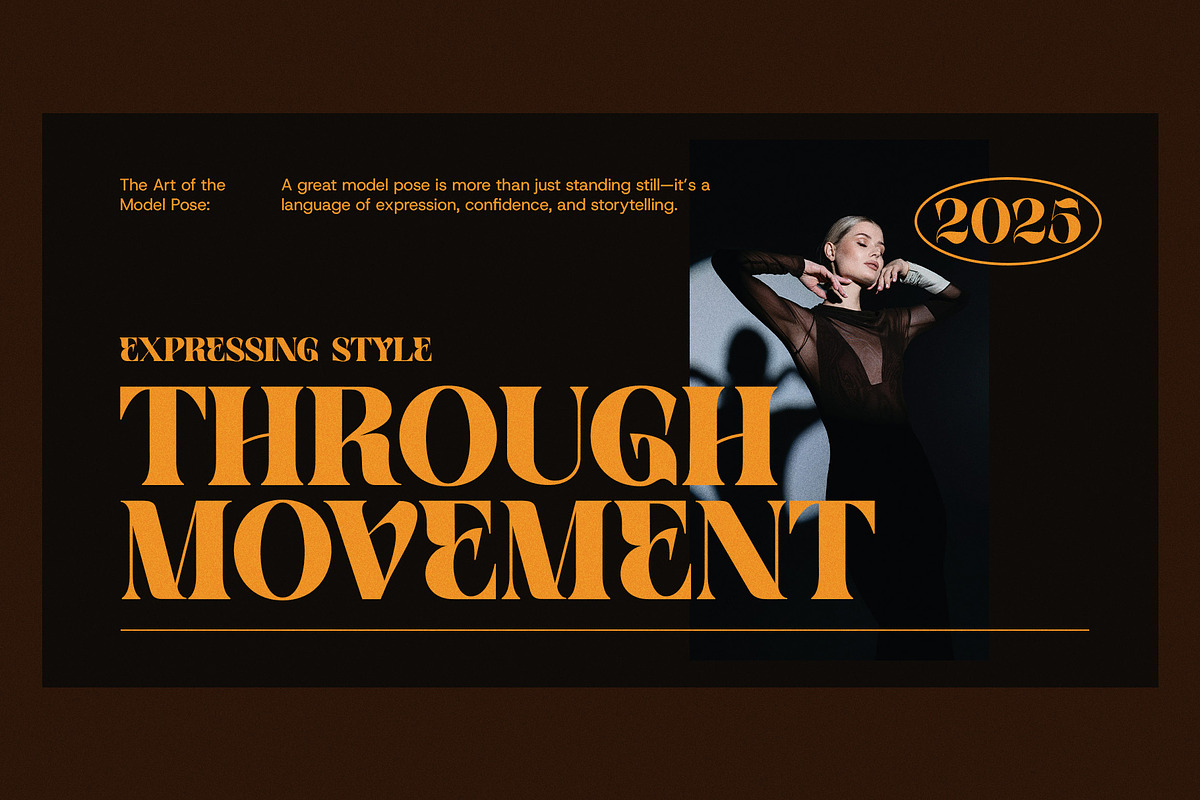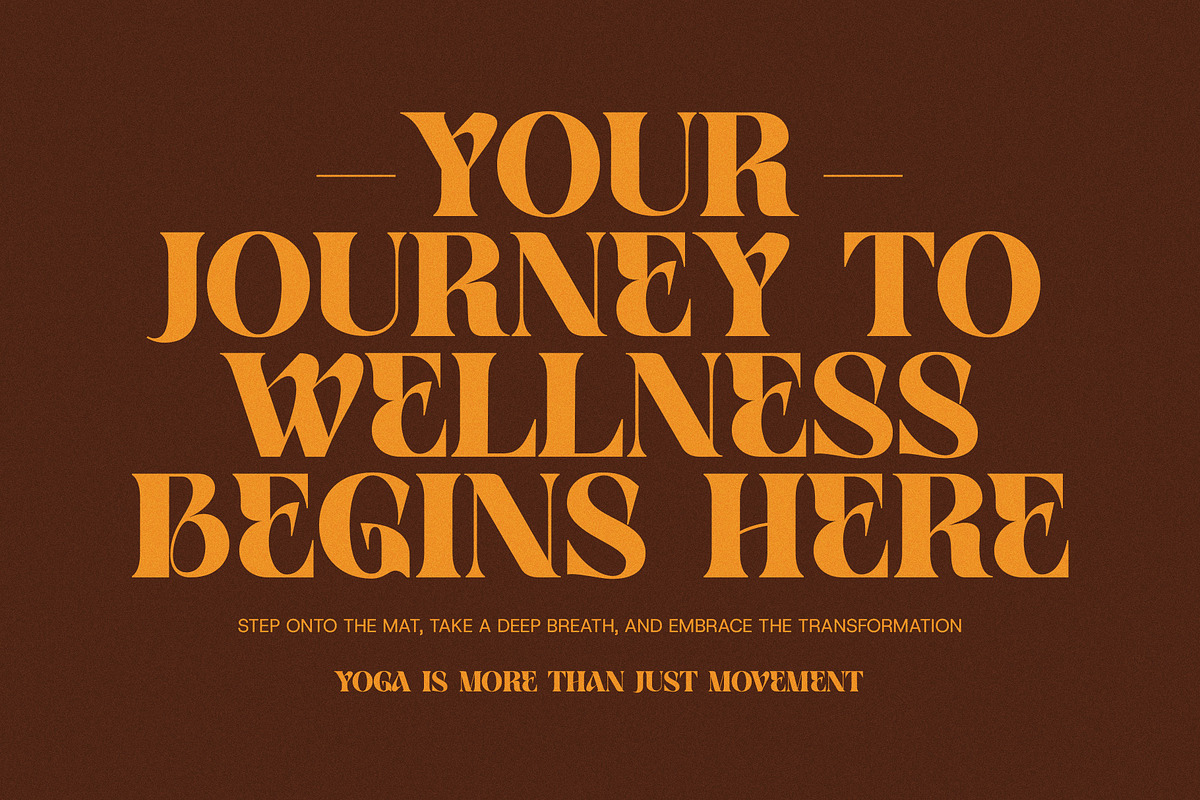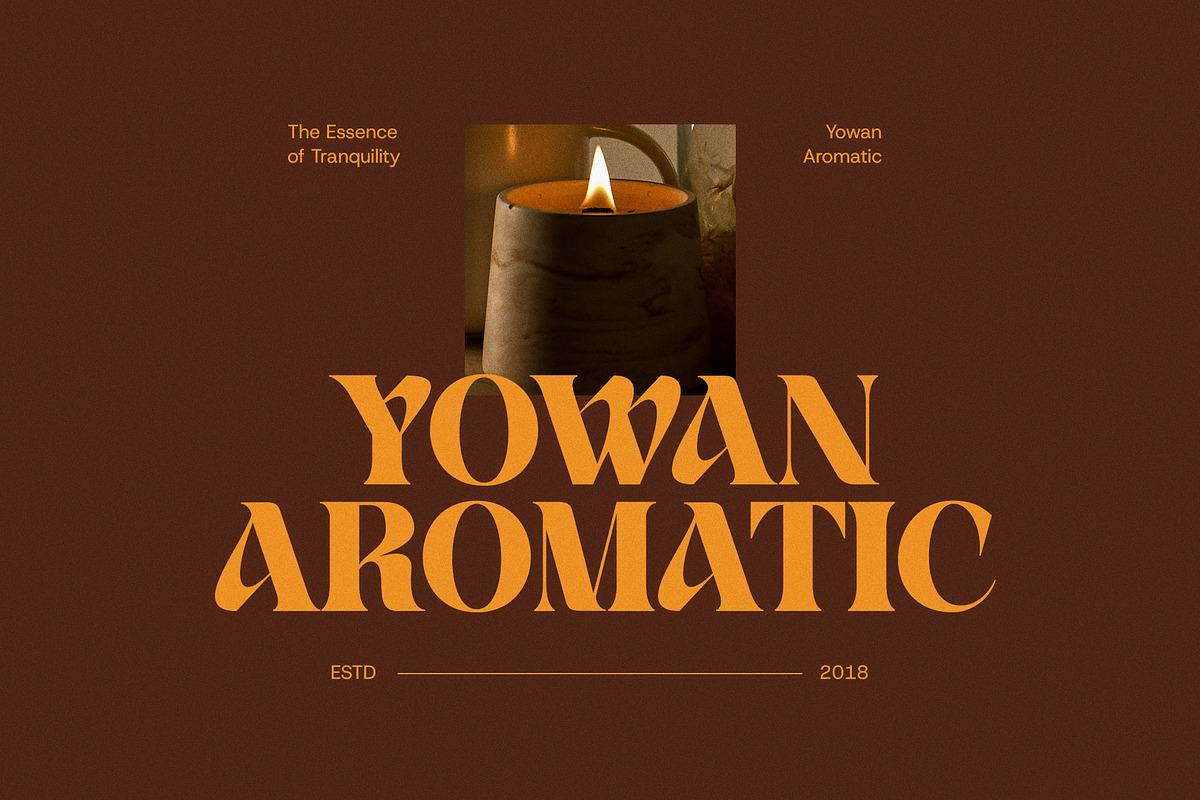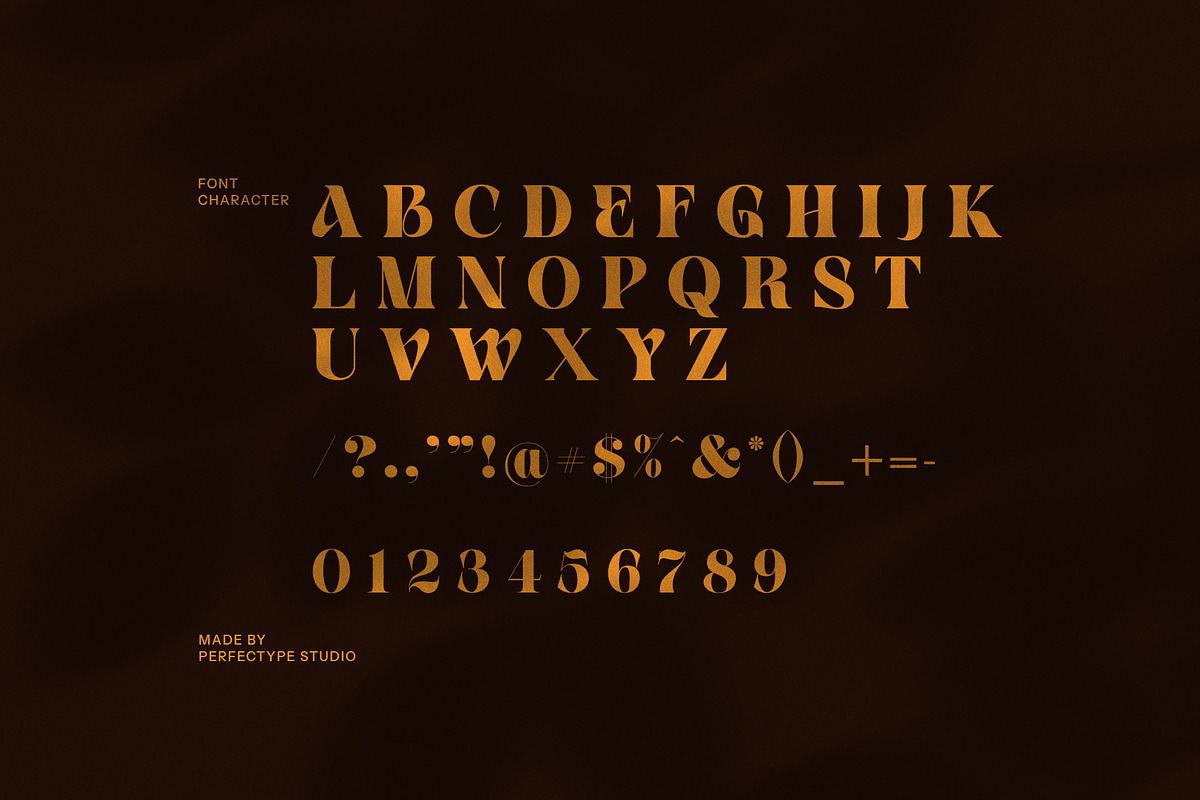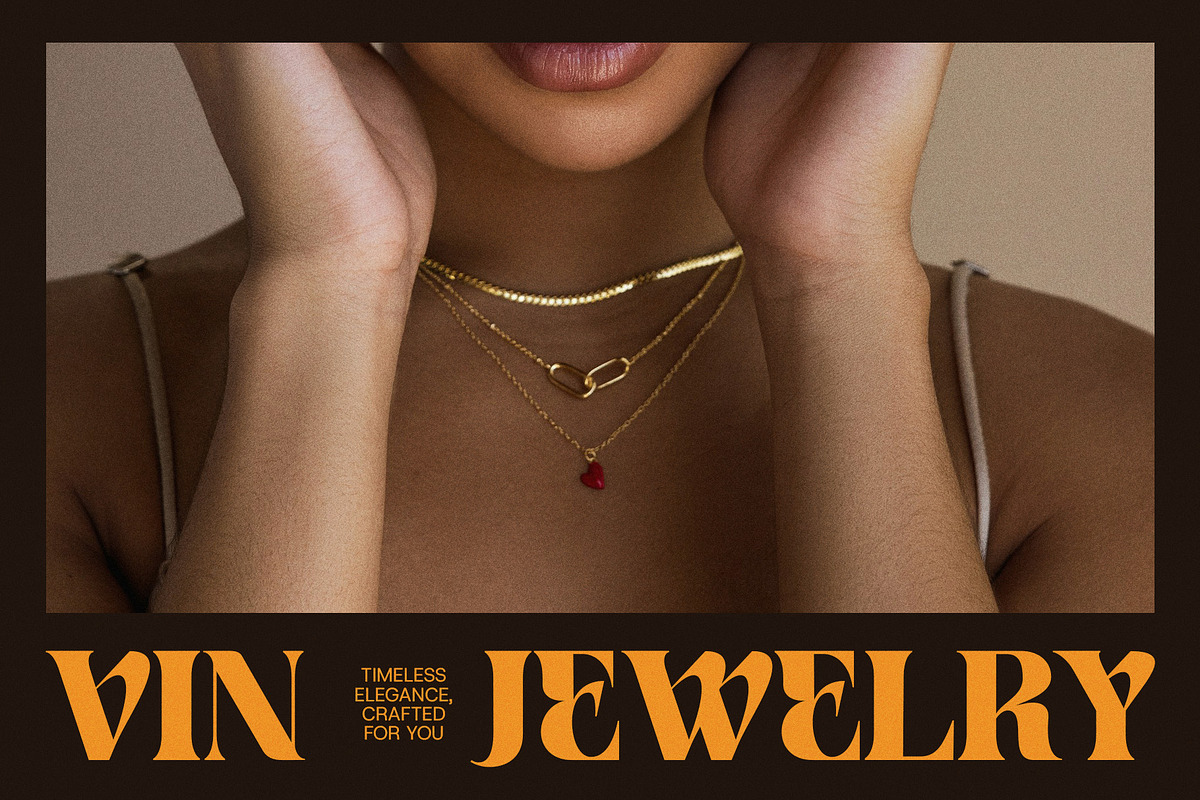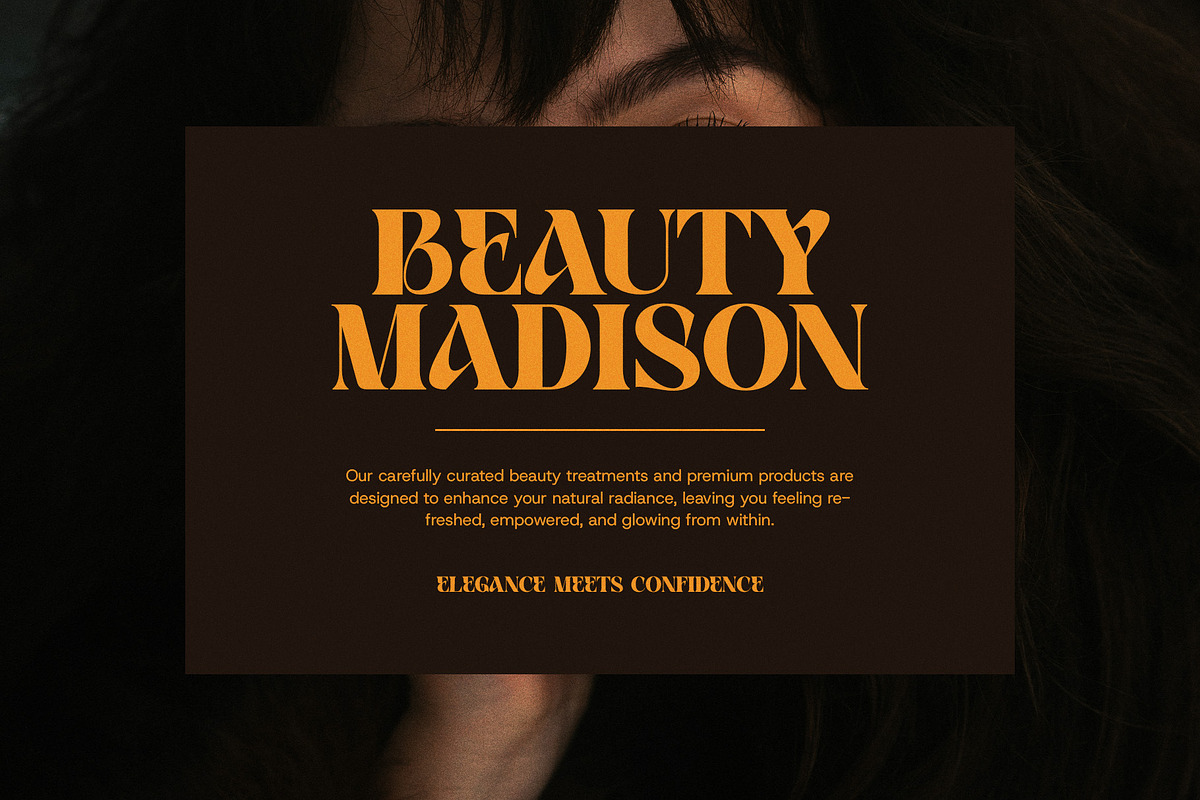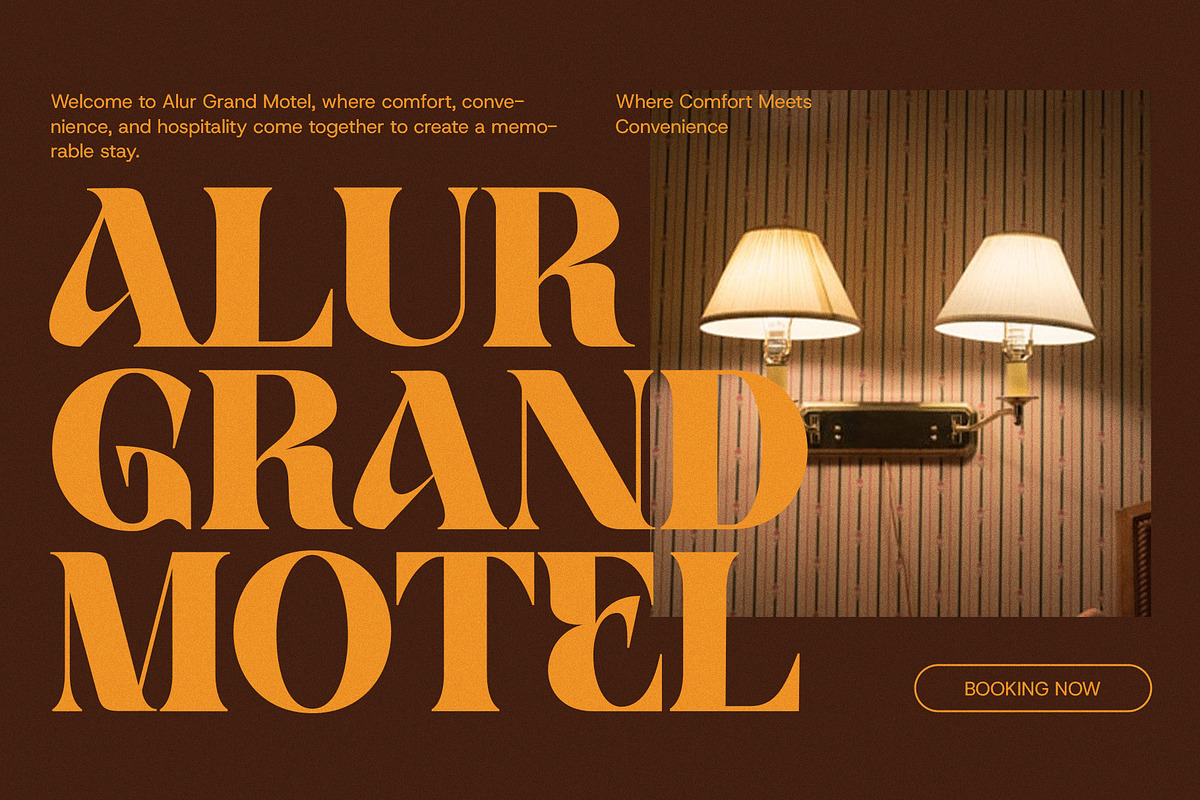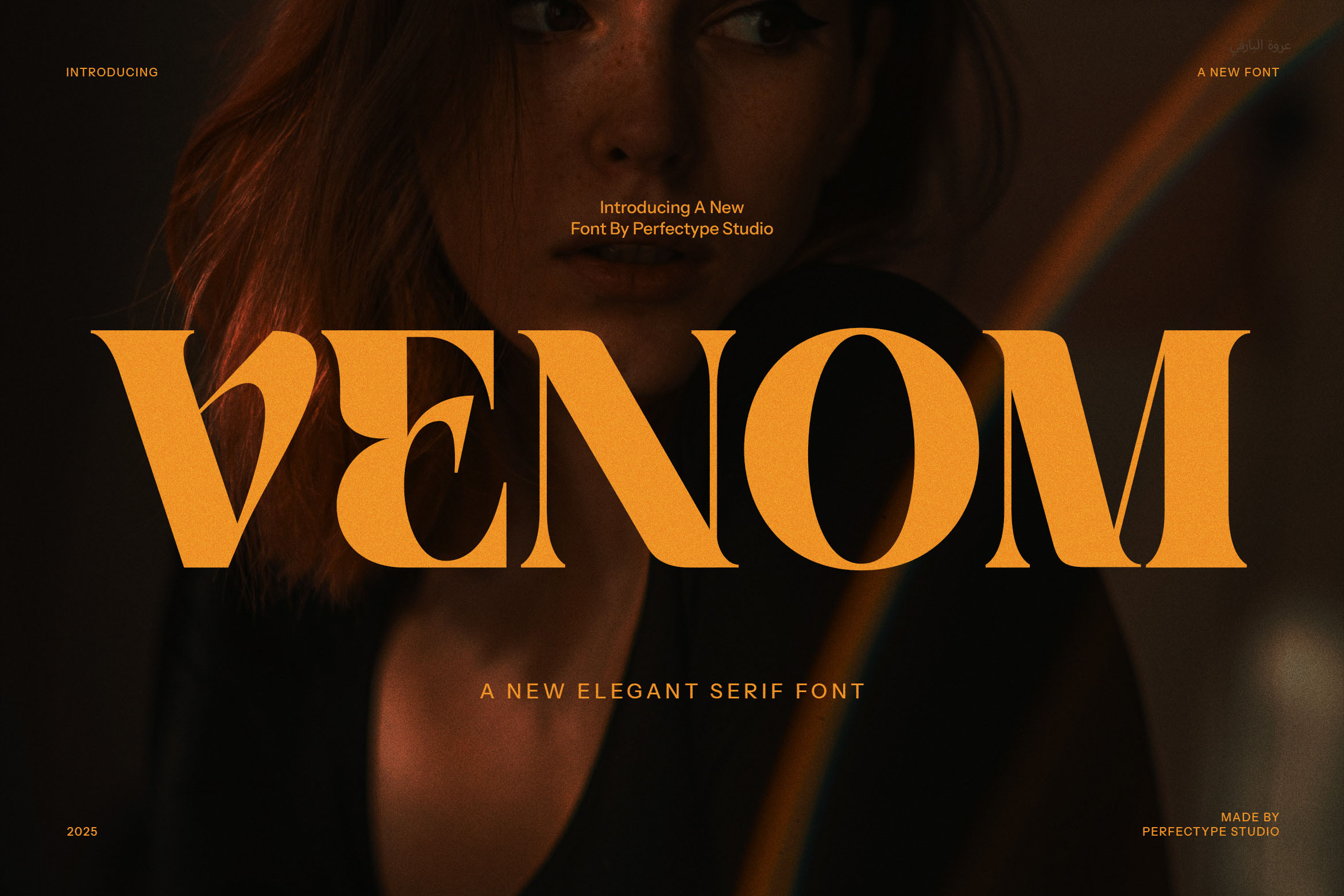
Venom Elegant Serif Font
Introducing Venom Elegant Serif Font, a sophisticated and contemporary typeface designed for those who want to make a bold statement with elegance. Combining classic serif elements with a modern twist, Venom delivers a stylish and polished look that is perfect for high-end branding, luxurious product packaging, and dynamic digital design. Whether you’re working on a logo, website, advertisement, or magazine layout, Venom ensures that every project stands out with an air of refinement.
With its meticulously crafted serifs and sleek letterforms, Venom exudes a sense of timeless sophistication, making it a versatile choice for upscale and high-end design needs. The font’s distinct character forms and sharp details lend it an aura of modern elegance that can elevate any creative project. Its bold yet refined design makes it an ideal choice for boutique brands, fashion, editorial, and premium product labels, giving your designs the perfect balance of luxury and accessibility.
What truly sets Venom apart are its stunning ligatures and alternate characters. These features provide unique opportunities to create customized, cohesive typography that flows smoothly. The ligatures effortlessly connect letters, giving your text a seamless, graceful appearance, while the alternate forms provide designers with additional creative flexibility. Whether you’re designing a signature-style logo, crafting eye-catching headlines, or developing custom typographic treatments, the ligatures and alternates in Venom allow you to achieve distinctive and visually appealing results.
Venom Elegant Serif Font is the perfect typeface for a wide range of design projects, including branding, packaging, magazines, food industry, and luxury advertisements. Its unique and stylish character forms make it ideal for any design that requires a touch of sophistication without sacrificing readability. Whether you're creating a modern website or designing a vintage-inspired magazine layout, Venom adapts to a variety of design styles and media formats.
The versatility and elegance of Venom make it a top choice for creative professionals looking to elevate their design work. Its modern, clean design combined with classic serif details makes it perfect for upscale logos, boutique branding, and product names that demand attention. Whether for print or digital, Venom brings a premium touch to your designs, ensuring that your projects stand out in any setting.